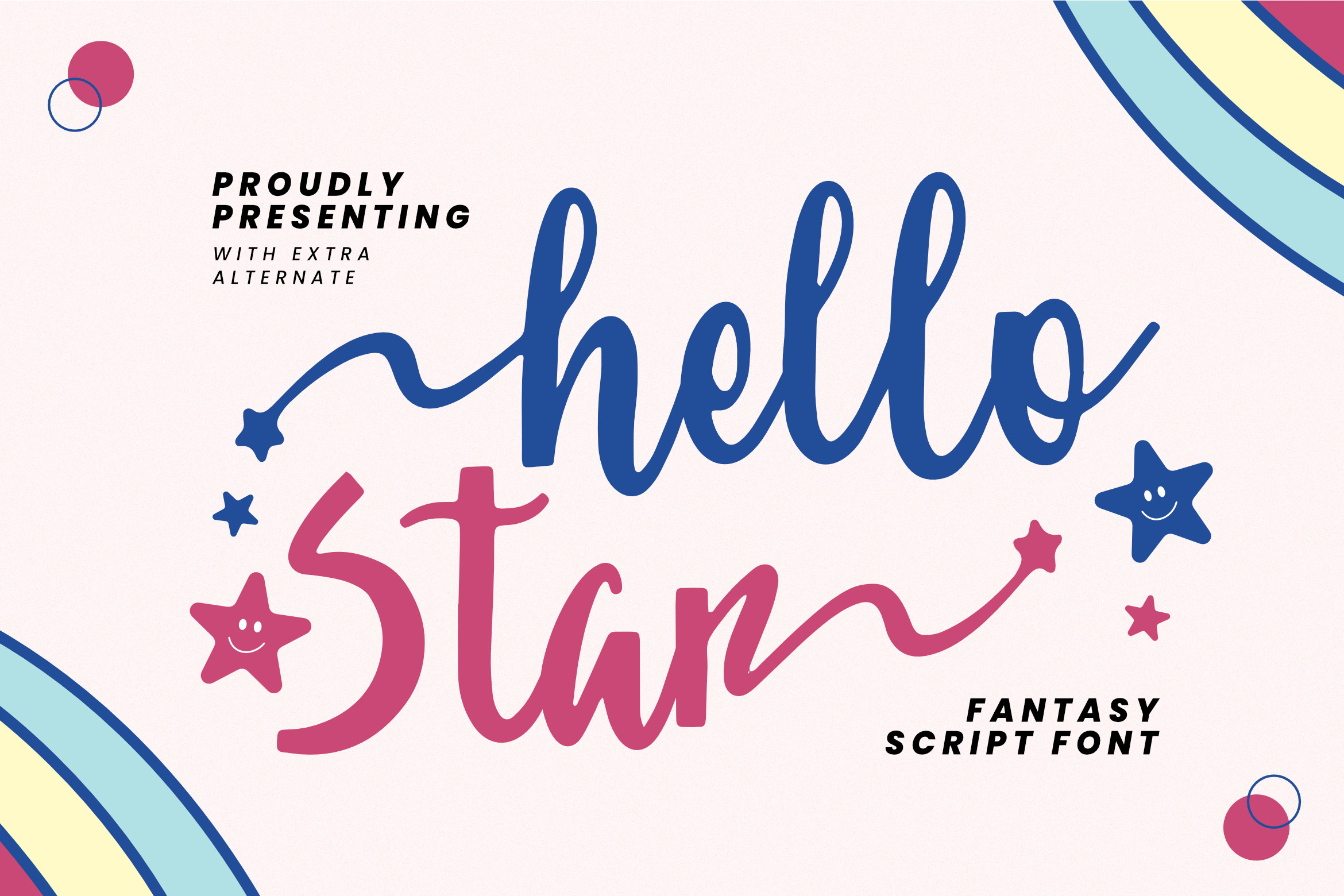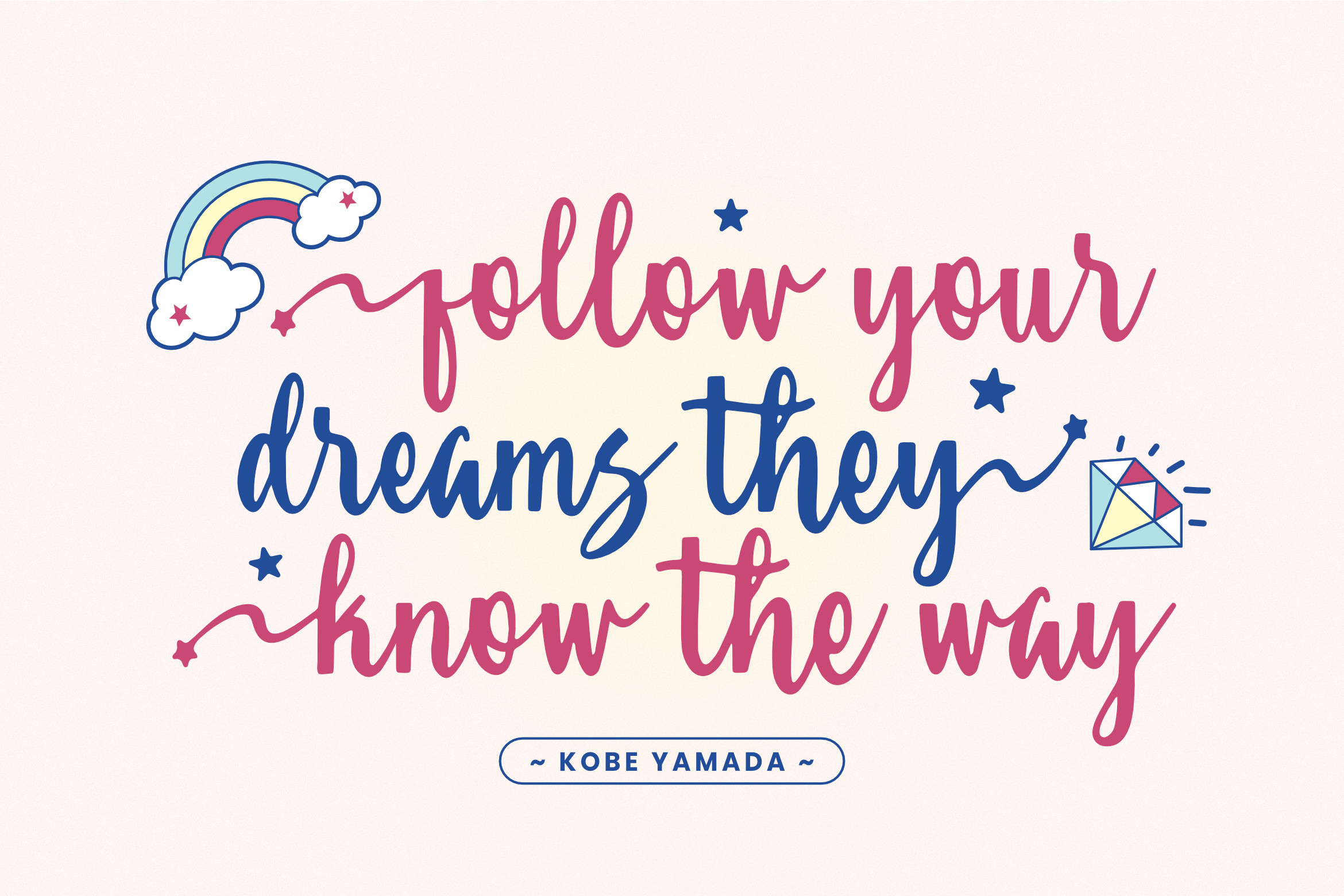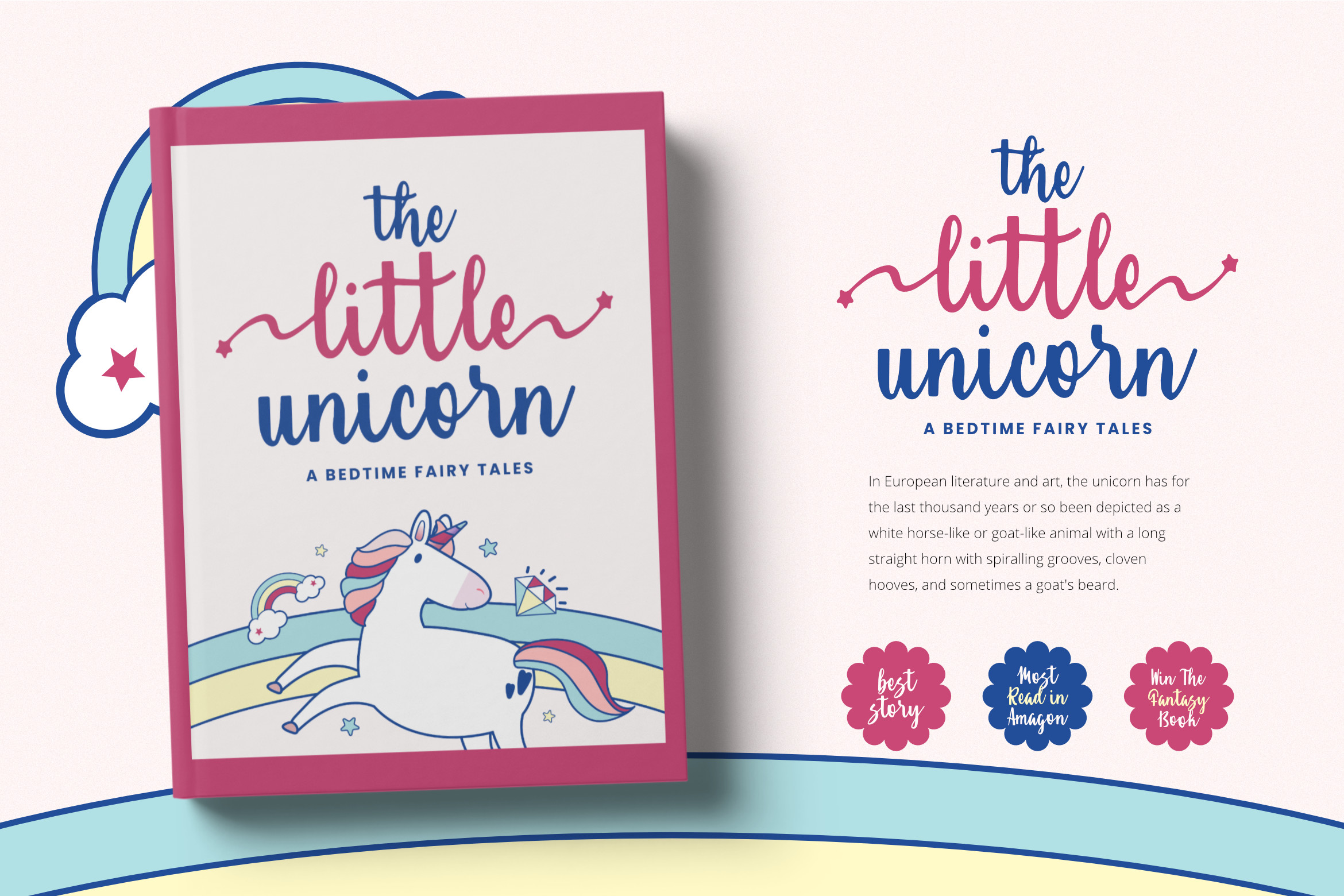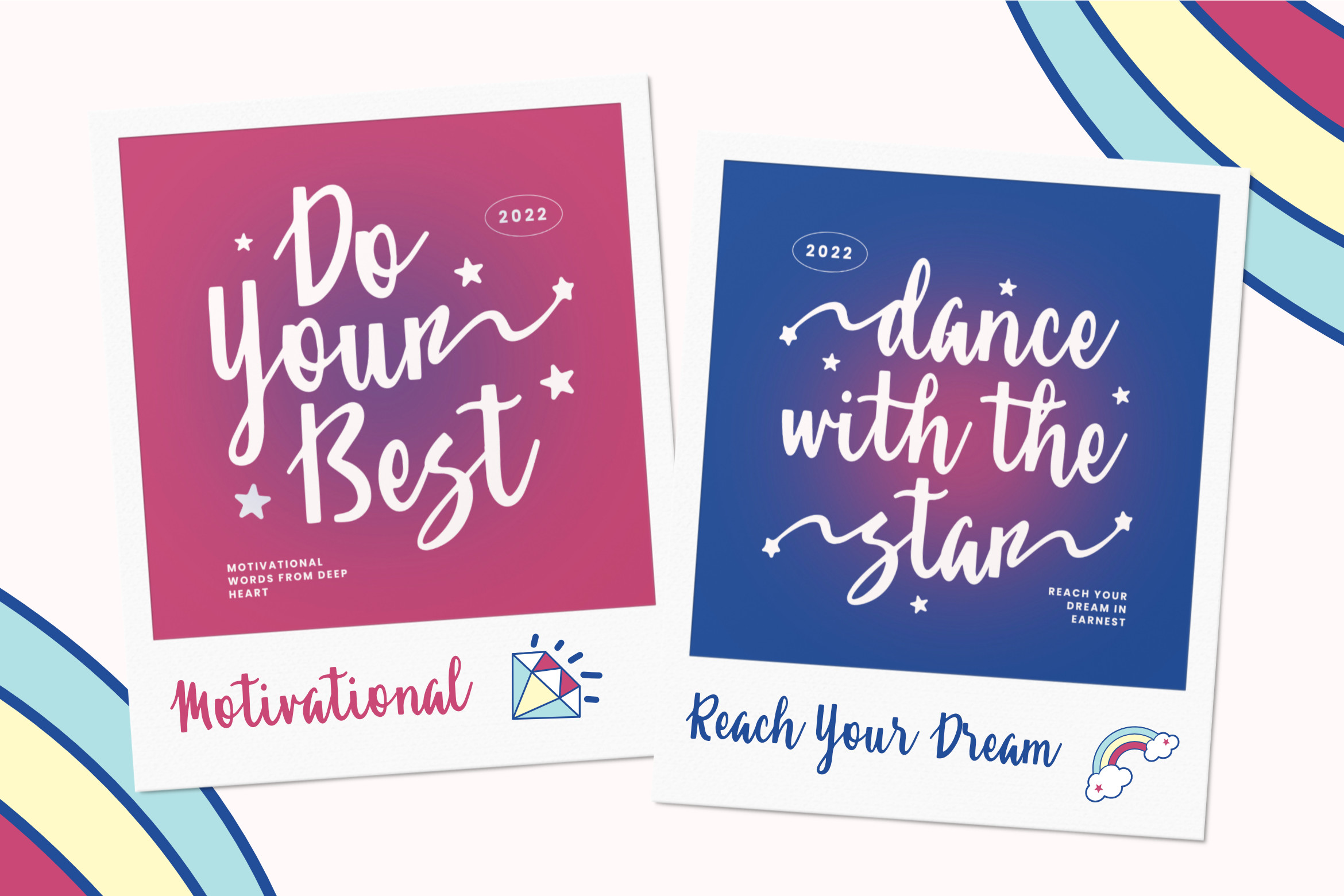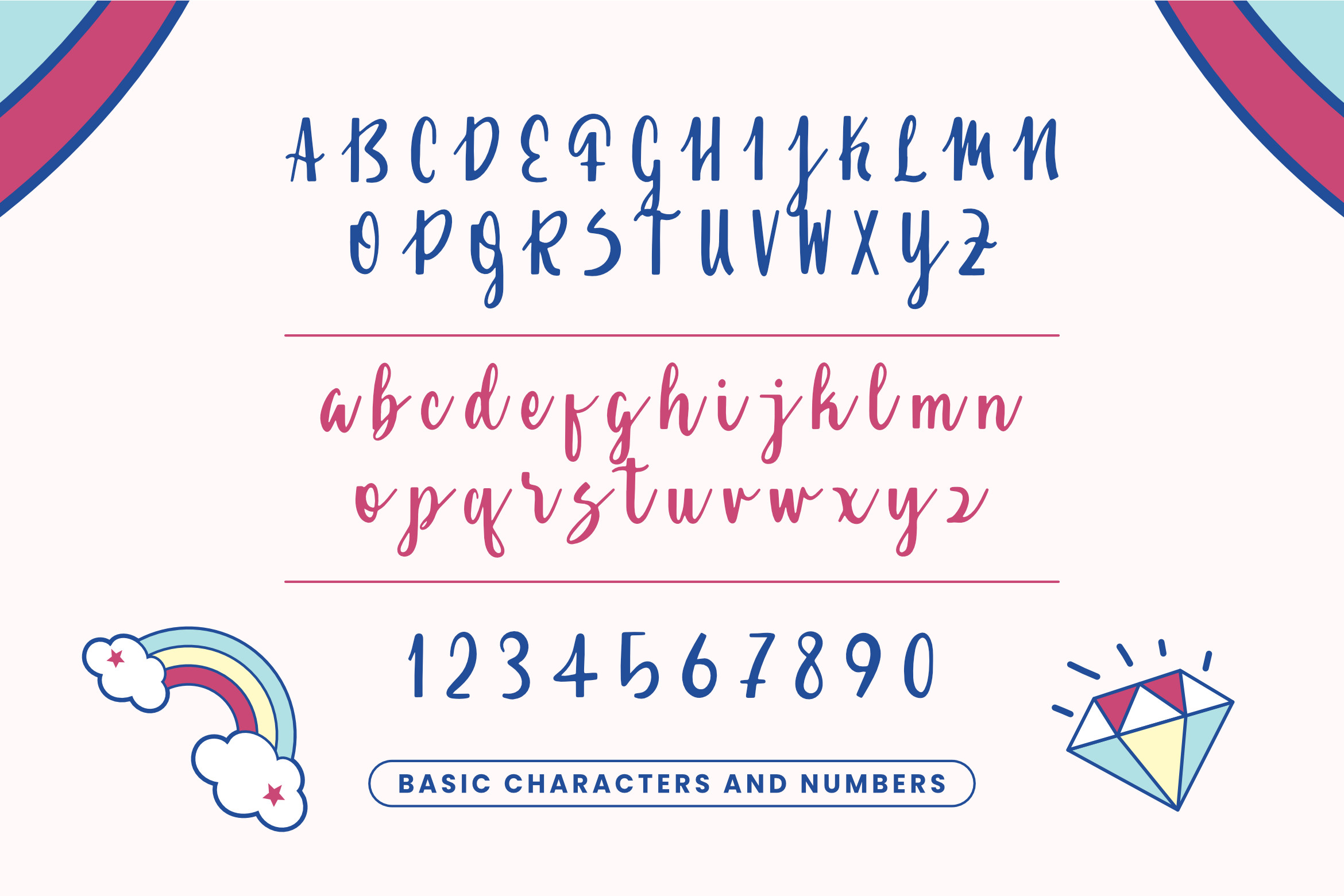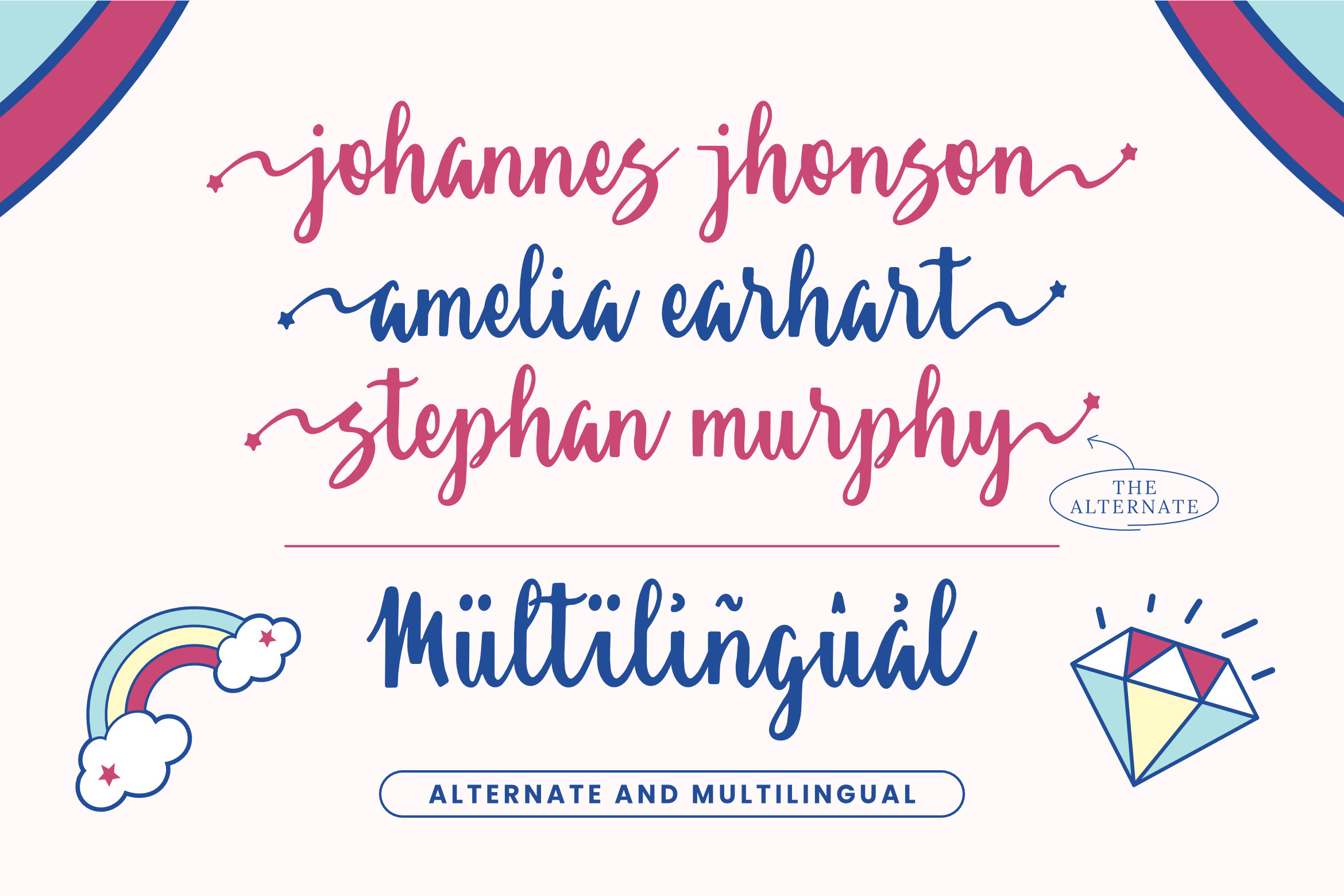
Hello Star is a whimsical fantasy script font that sparkles with youthful energy and joyful expression. Featuring playful strokes, charming star-themed swashes, and a hand-lettered feel, this font is perfect for kids’ projects, storybooks, product packaging, and cheerful branding. The mix of script and display elements creates a fun dynamic that brings any design to life.
With multilingual support and a set of cute alternates, Hello Star is both versatile and delightful. Its bright personality shines through in every curve, making it an ideal choice for inspirational quotes, nursery décor, birthday invitations, and imaginative visual storytelling.
Hello Star